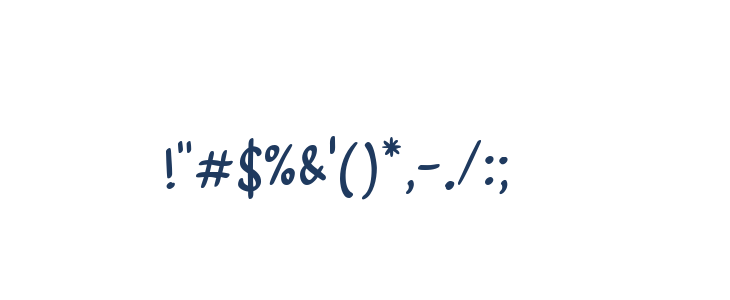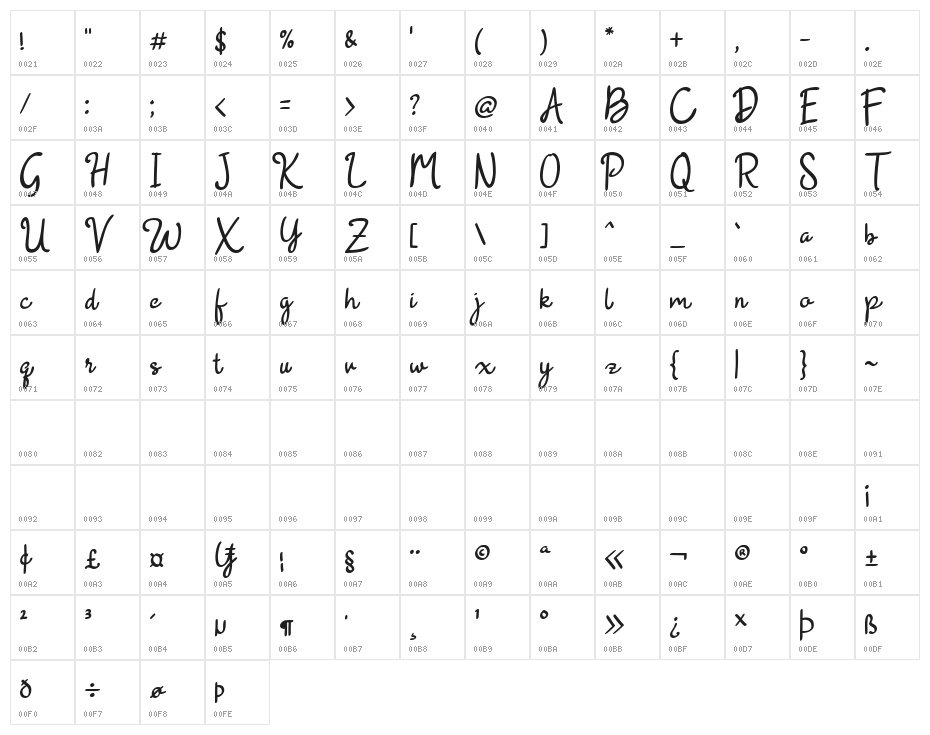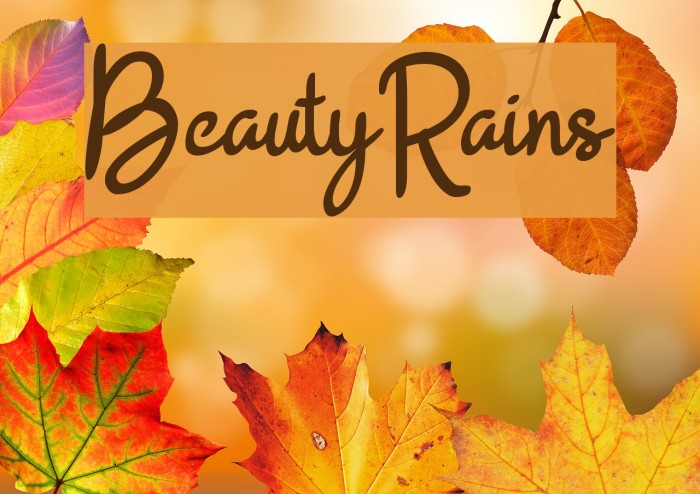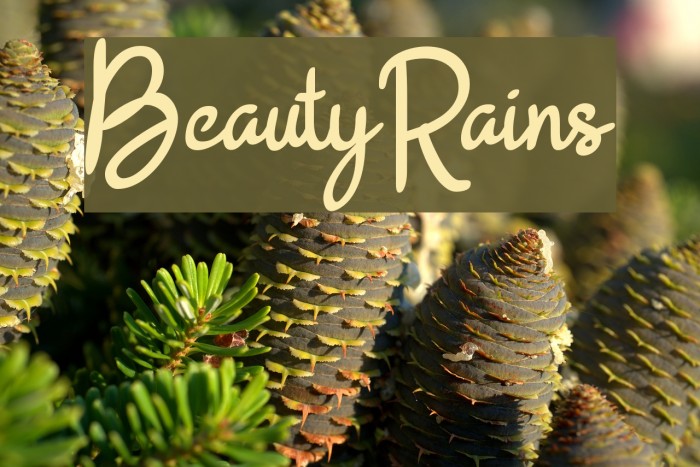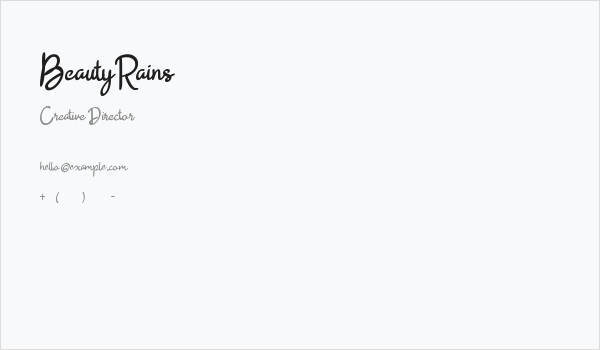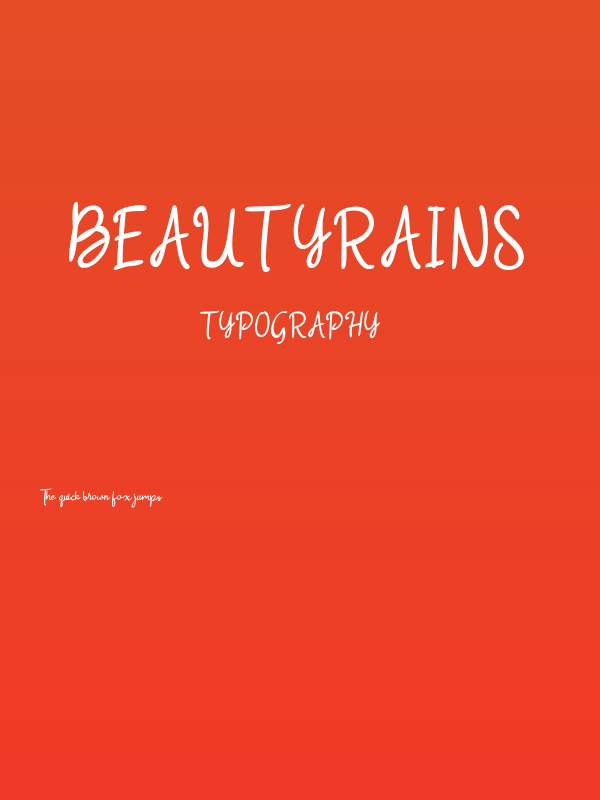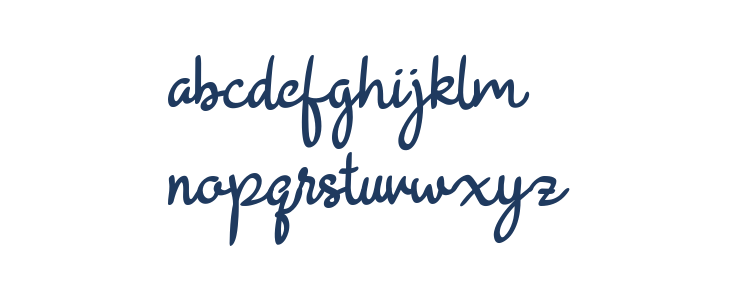
BeautyRains Font
BeautyRains Description
This font features a playful and casual handwritten style, characterized by its fluid and slightly irregular strokes. The uppercase letters are bold and slightly slanted, giving a dynamic and lively appearance. The lowercase letters maintain a consistent flow, with some letters extending below the baseline, adding to its informal charm. The numerals and special characters are crafted with the same whimsical touch, ensuring a cohesive look across all text. This font's overall appearance is friendly and approachable, making it suitable for projects that require a personal and informal touch.
Overall StyleCasual
Use CaseLogos, Headlines, Informal text
Proposed ProjectsGreeting cards, invitations, personal blogs, children's books, and casual branding.